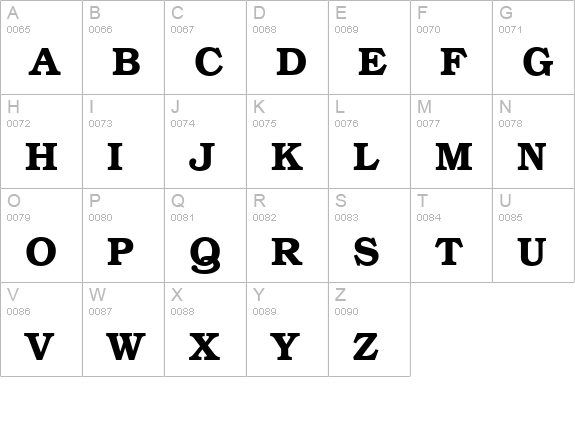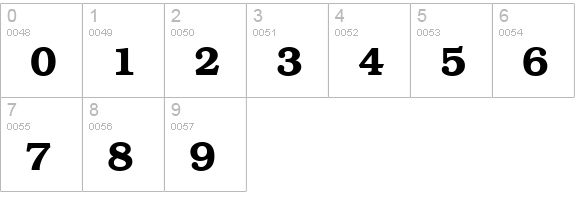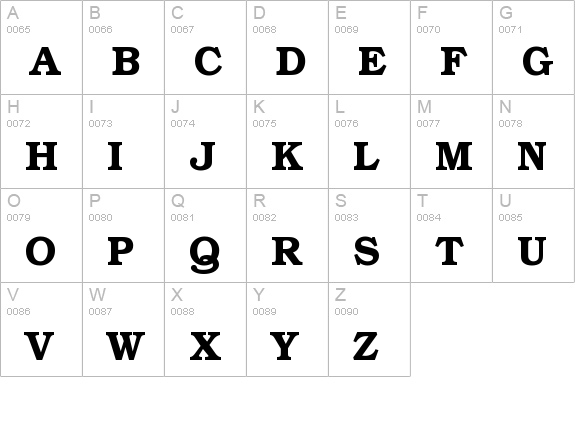
QTBookmann Bold Font Details
QTBookmann Bold is a strong, high-contrast variant in the QTBookmann typeface family \xE2\x80\x94 well suited to headlines, attention-grabbing titles, and strong calls-to-action.
QTBookmann Bold is a visually striking and versatile font that exudes confidence and boldness. Its strong and prominent letterforms make it perfect for headlines, titles, and any design that demands attention. With its clean and crisp lines, this font stands out and leaves a lasting impression. What sets QTBookmann Bold apart is not just its stunning aesthetics, but also its accessibility. It is freely available to download at FontsMarket.com, making it an excellent choice for designers, creatives, and anyone looking to add a touch of sophistication to their projects without breaking the bank. Whether you're designing a poster, creating a logo, or crafting a captivating website, QTBookmann Bold is the perfect choice to make a statement. Its boldness and elegance will elevate any design and grab the viewer's attention, while its versatility ensures that it can be used in a wide range of contexts. This font offers a harmonious balance between classic and contemporary design elements, making it suitable for both traditional and modern projects. Its legibility and readability make it easy to convey messages effectively, ensuring that your content will be understood and appreciated by your audience. QTBookmann Bold is not just a font; it is a powerful tool that empowers designers to create stunning and impactful visuals. Its sleek and bold design, combined with its free availability at FontsMarket.com, makes it an invaluable addition to any designer's toolkit. So why wait? Download QTBookmann Bold today and take your designs to new heights.